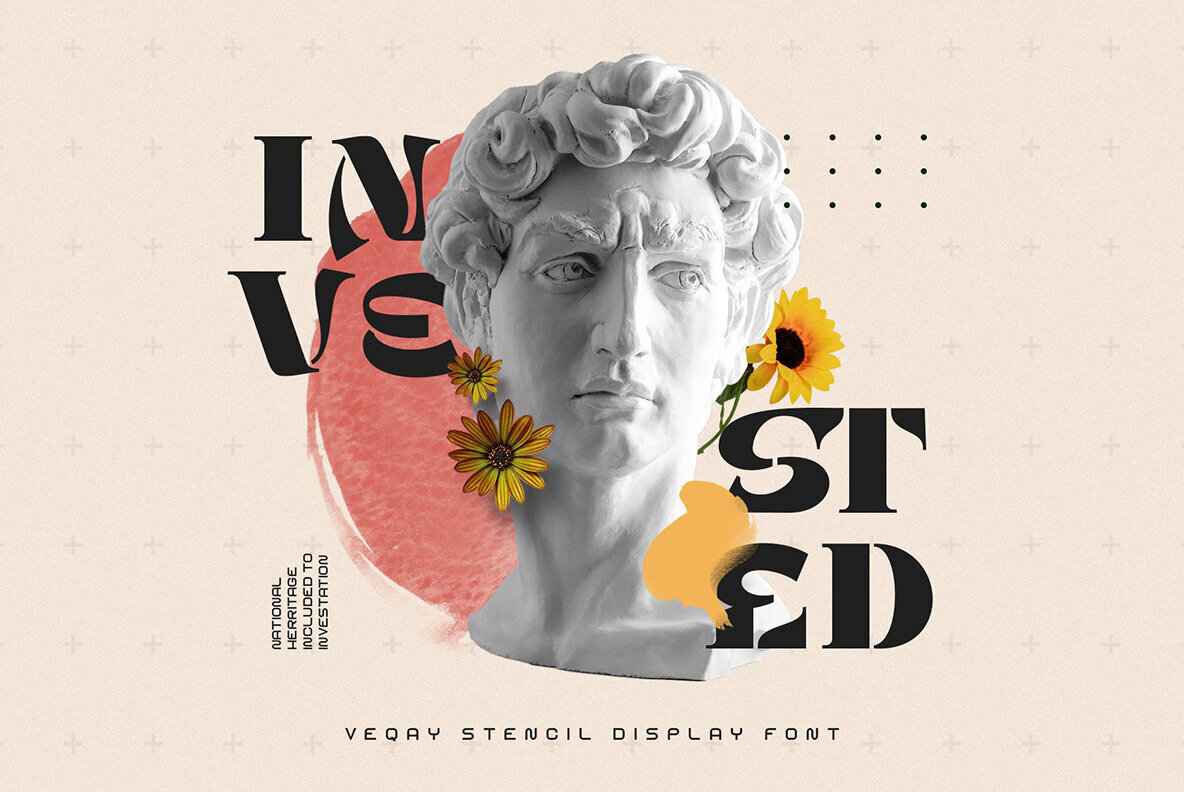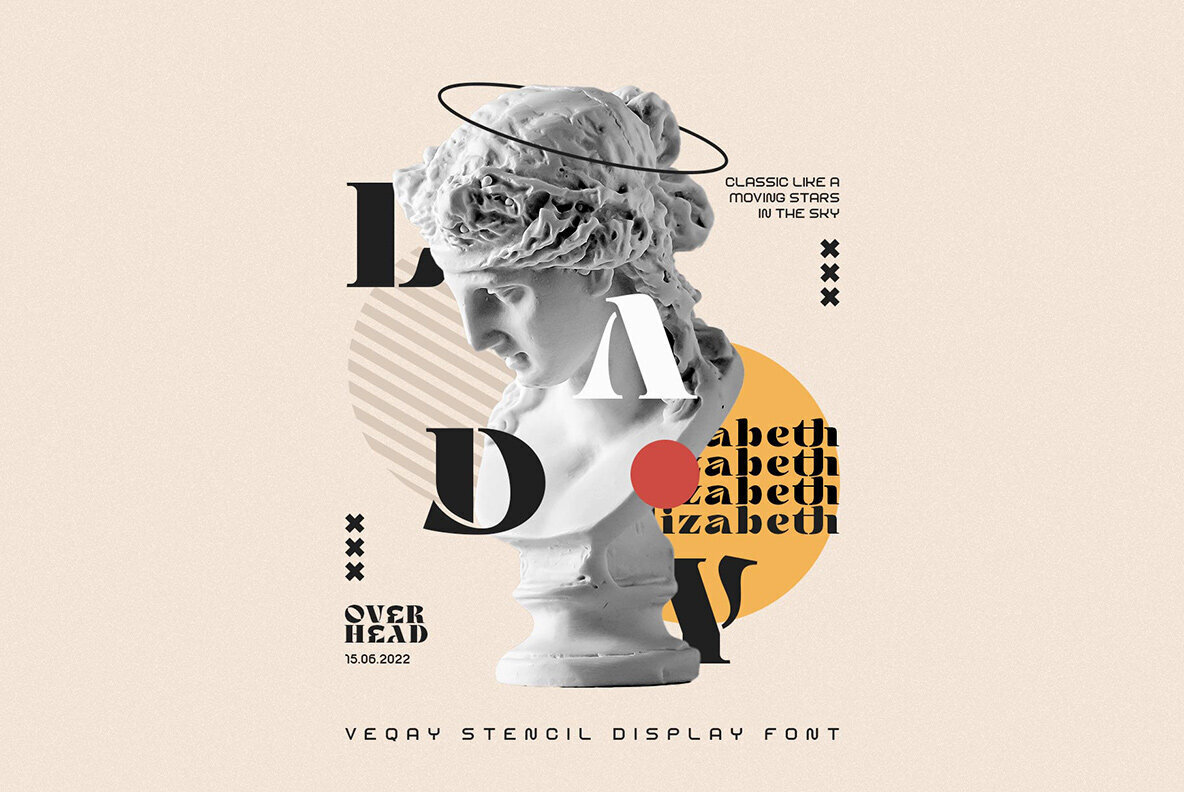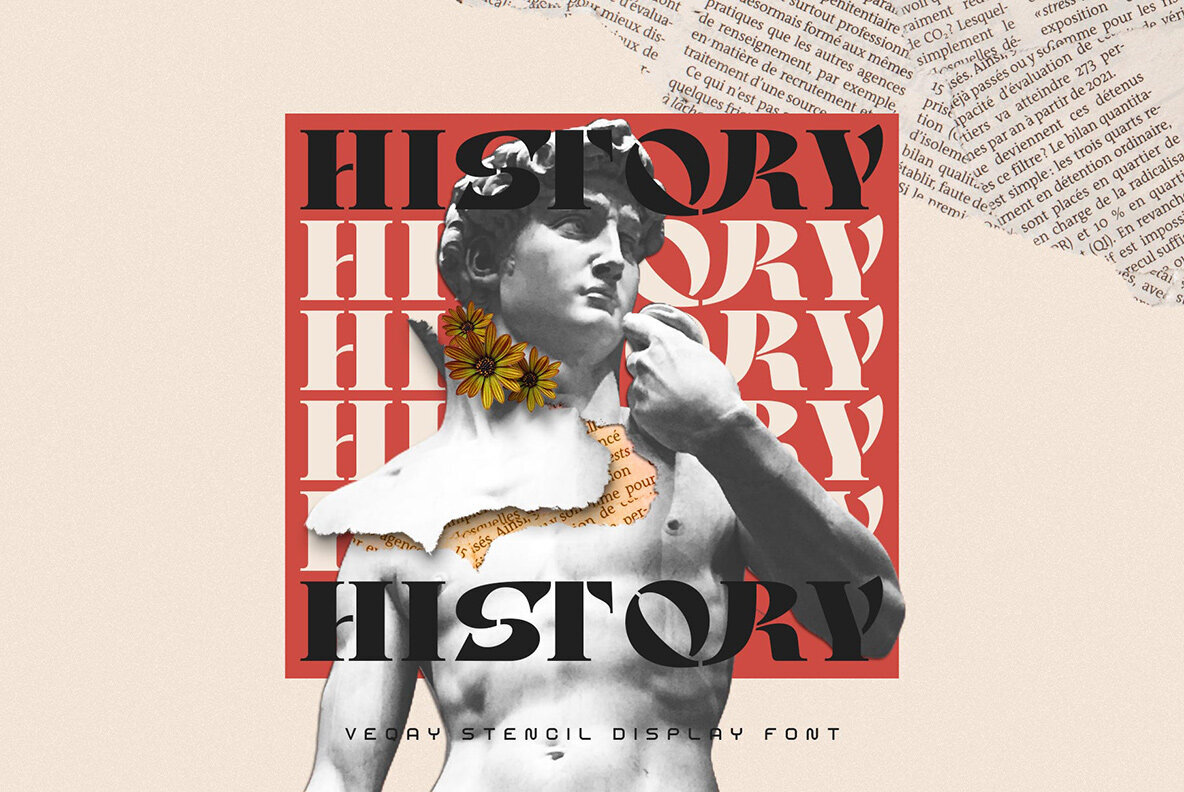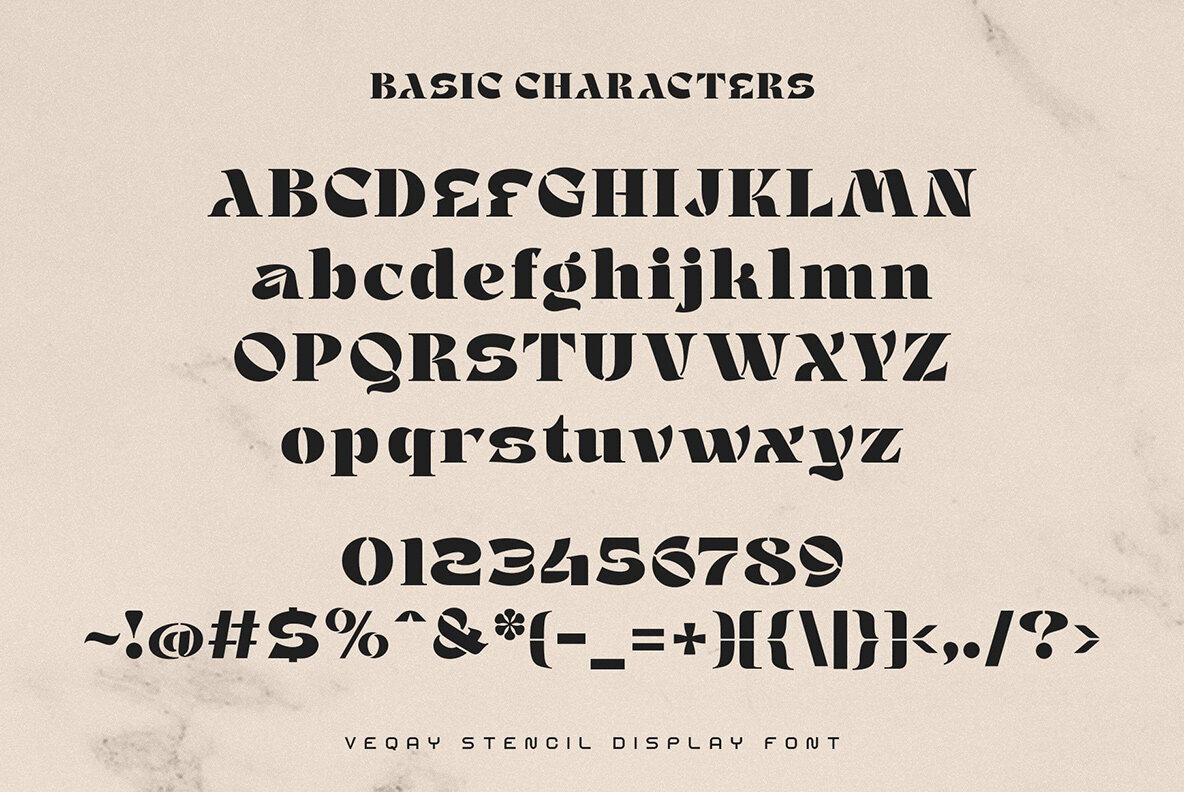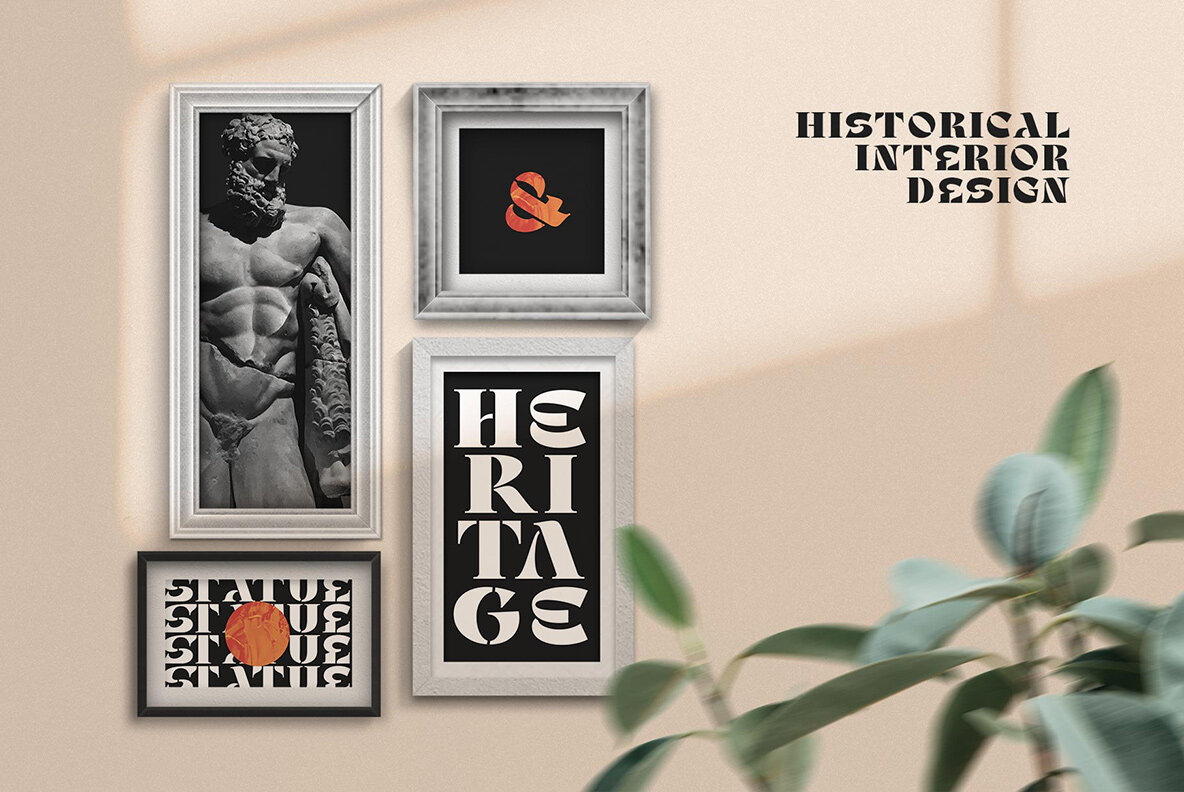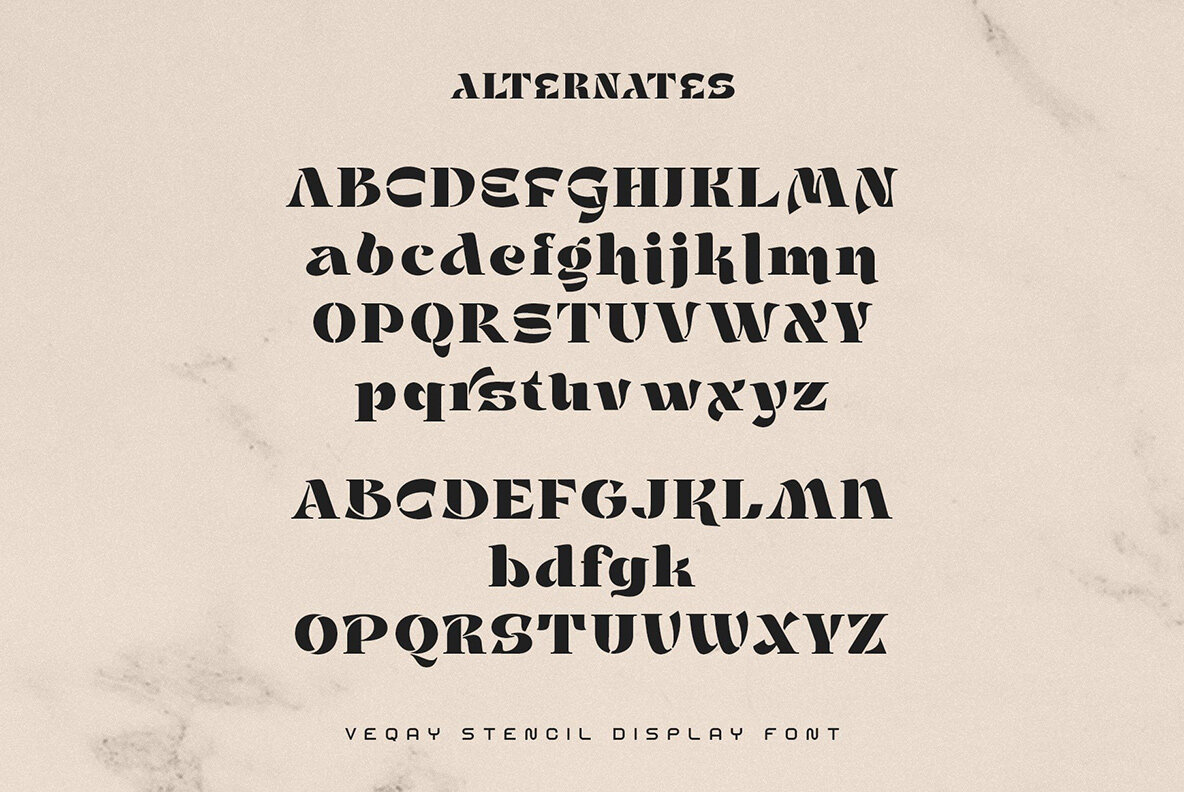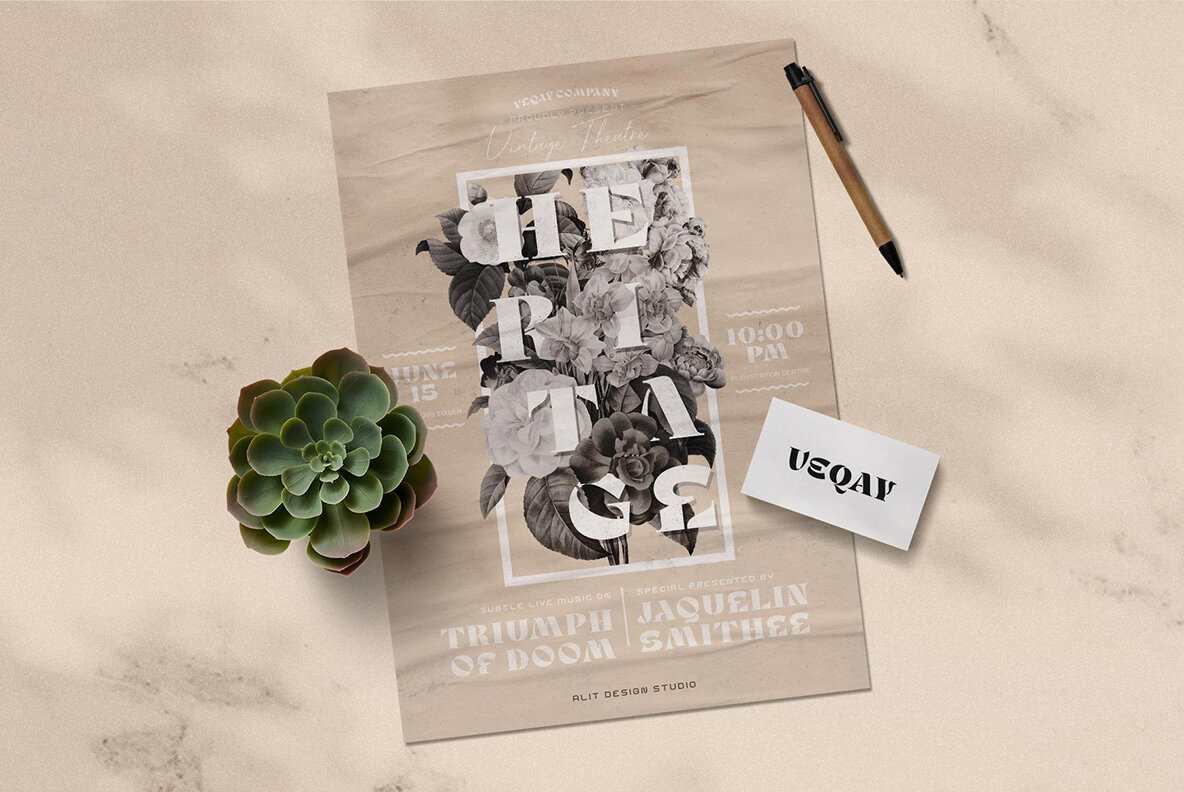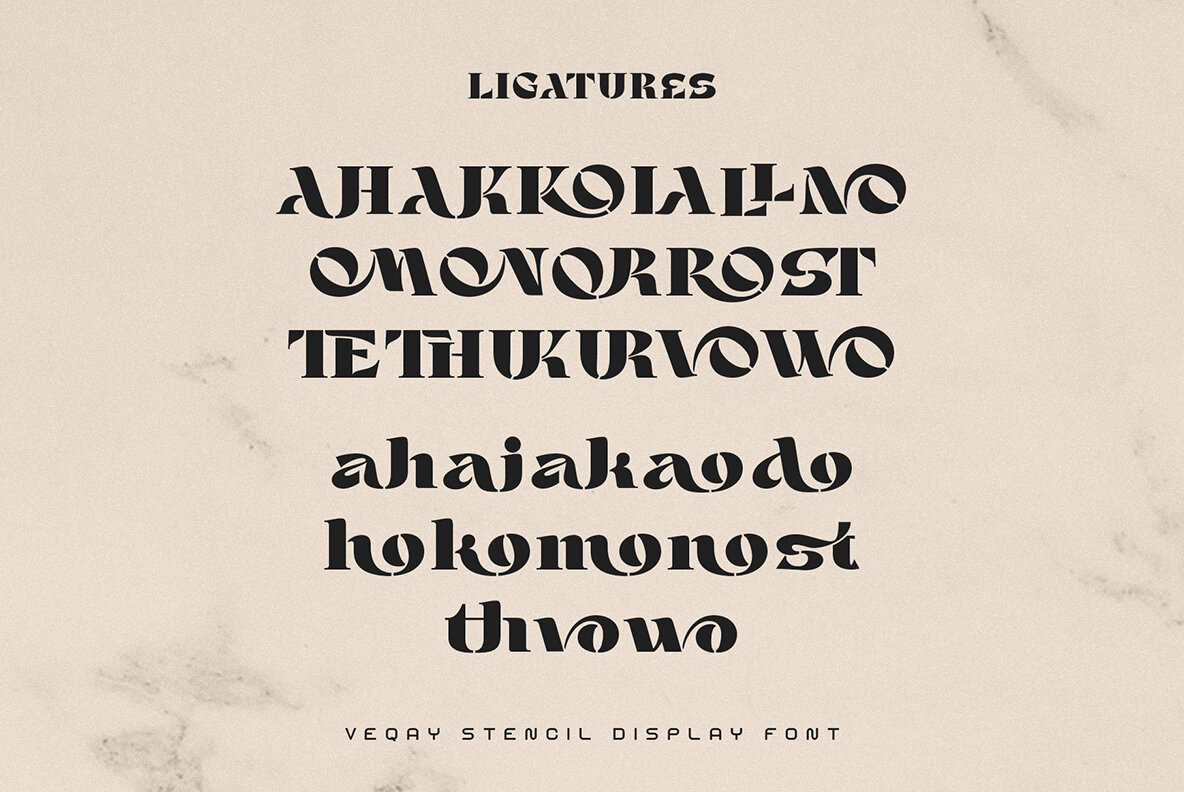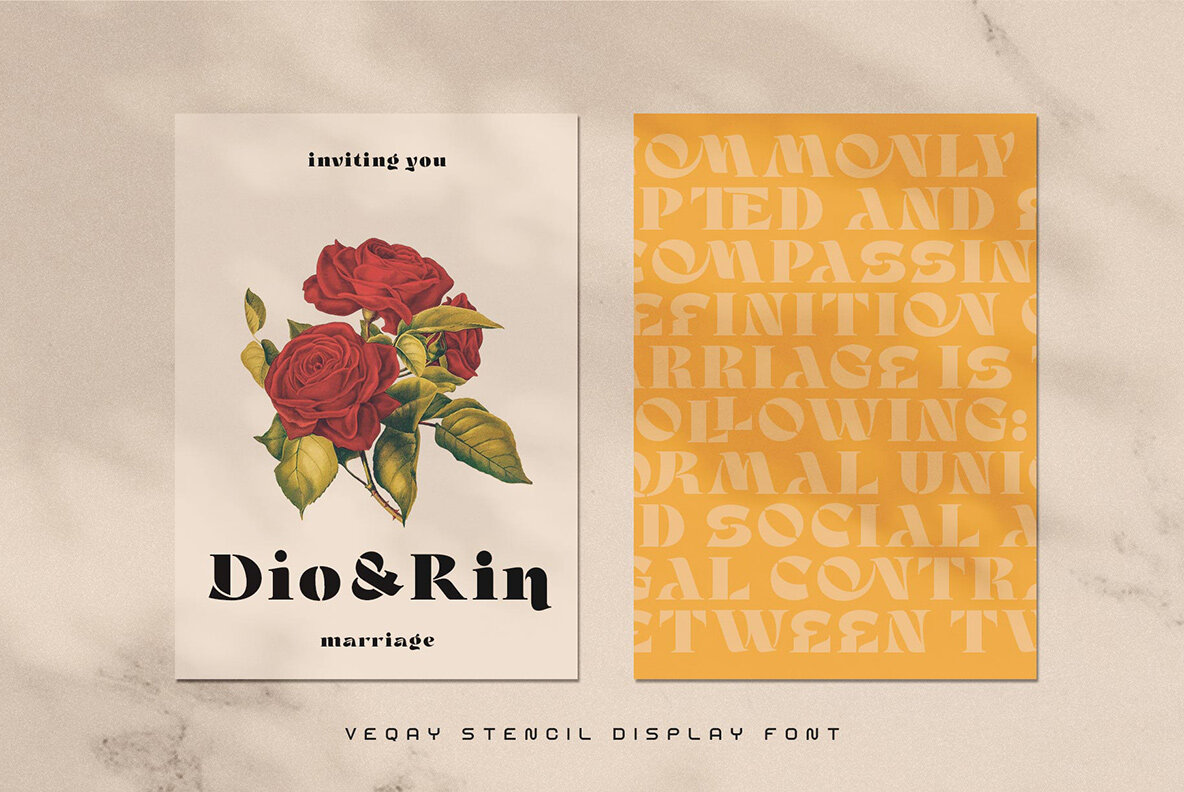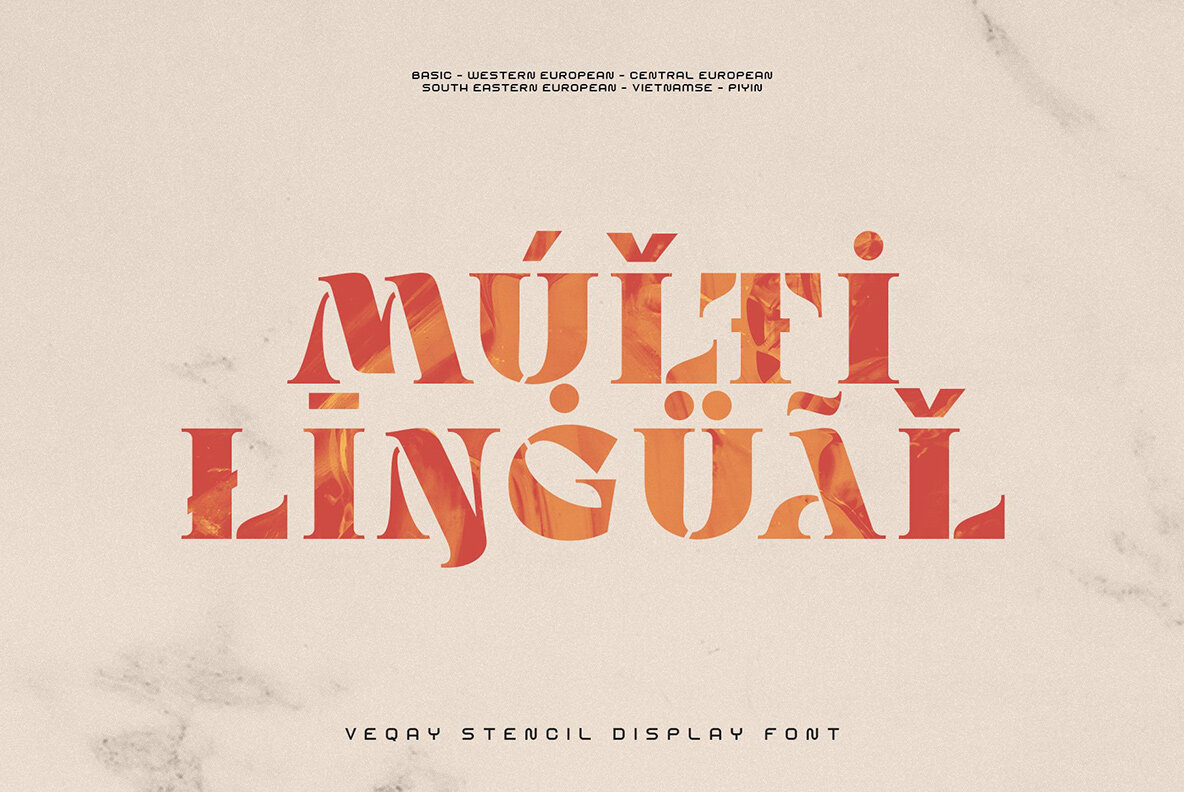
Veqay Font
Veqay Regular
The Veqay stencil display font, created by Alit Suarnegara, combines retro charm with a valiant stencil style to present a distinctive character that is both stylish and daring. This font offers a unique aesthetic suited for display with its bold yet elegant design elements, capturing attention in various graphic applications. For utilizing the beautiful swashes and alternates fully, tools supporting OpenType features such as Adobe Illustrator CS, Adobe Photoshop CC, Adobe InDesign, and Corel Draw are recommended. If your software lacks a Glyphs panel, consider installing additional font files for full access to swashes.Veqay: A Bold Stencil Display Font with Retro Flair